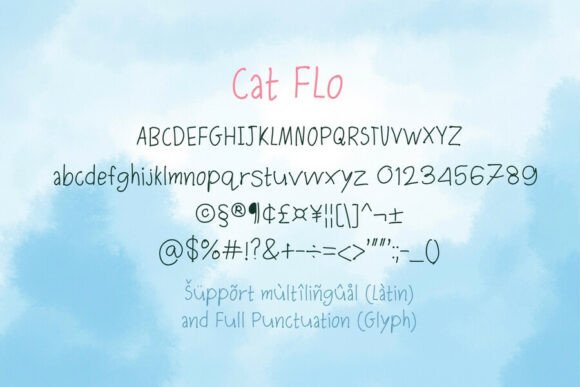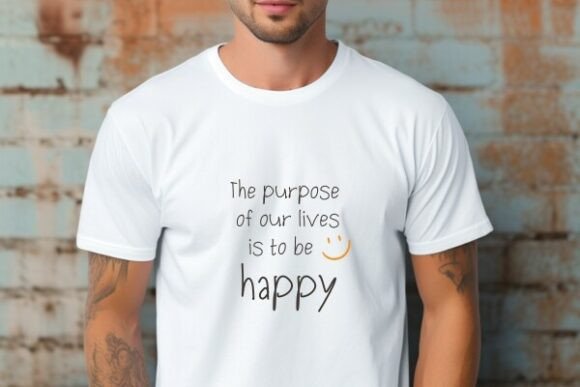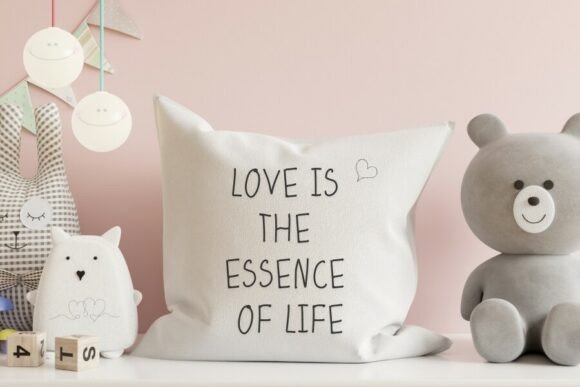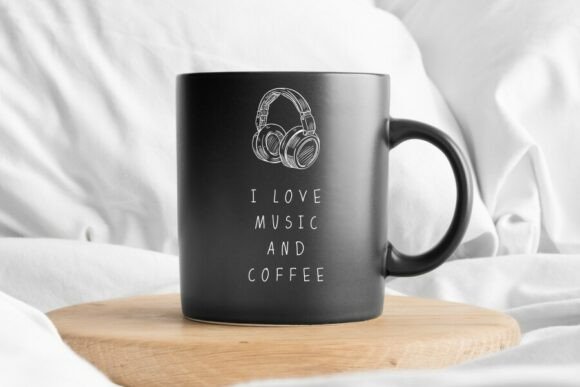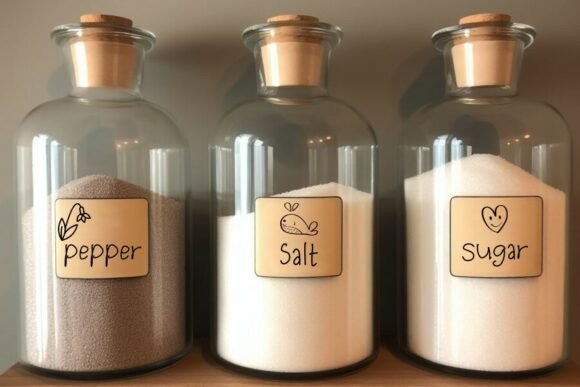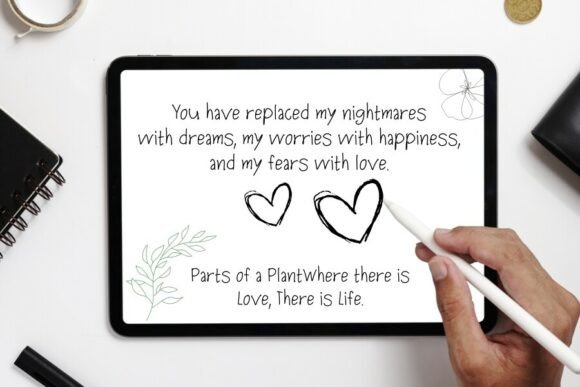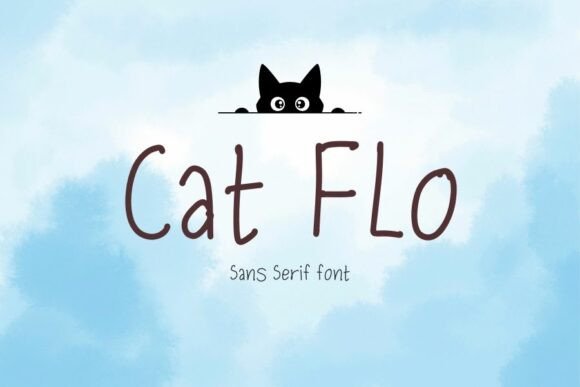
Introducing Cat Flo Font: The Ultimate Cute and Friendly Handwritten Font
Are you tired of using the same old fonts in your designs? Look no further! Cat Flo Font is here to add a touch of cuteness and friendliness to your projects. This beautiful handwritten font is perfect for designers, crafters, and anyone looking to add a personal touch to their work.
What is Cat Flo Font?
Cat Flo Font is a cute, soft, and friendly handwritten font that exudes an informal style and casual vibe. Its unique and charming lettering makes it perfect for a variety of design projects, from greeting cards and invitations to branding and packaging.
Key Features of Cat Flo Font
- Cute and Friendly: Cat Flo Font is designed to be adorable and approachable, making it perfect for designs that require a personal touch.
- Handwritten Style: The font’s handwritten style gives it a unique and organic feel that’s perfect for adding a touch of warmth to your designs.
- Informal and Casual: Cat Flo Font has a relaxed and casual vibe that’s perfect for designs that require a laid-back feel.
- Versatile: The font is versatile and can be used for a variety of design projects, from digital to print.
Why Use Cat Flo Font?
There are many reasons why you should consider using Cat Flo Font in your designs. Here are a few:
- Adds a Personal Touch: Cat Flo Font adds a personal touch to your designs, making them more relatable and engaging.
- Perfect for Branding: The font’s unique and charming lettering makes it perfect for branding and packaging projects.
- Great for Crafters: Cat Flo Font is perfect for crafters who want to add a touch of personality to their projects.
How to Use Cat Flo Font?
Using Cat Flo Font is easy! Here are a few tips to get you started:
- Pair it with Other Fonts: Pair Cat Flo Font with other fonts to create a unique and interesting contrast.
- Experiment with Colors: Experiment with different colors to find the perfect combination that matches your brand or design.
- Use it for Headings and Titles: Use Cat Flo Font for headings and titles to add a touch of personality to your designs.
- Make it Your Own: Don’t be afraid to experiment and make Cat Flo Font your own by adjusting the size, style, and formatting.
In conclusion, Cat Flo Font is a beautiful and versatile handwritten font that’s perfect for designers, crafters, and anyone looking to add a personal touch to their work. Its cute, soft, and friendly style makes it perfect for a variety of design projects, from branding and packaging to greeting cards and invitations. So why not give it a try and see the amazing results for yourself?
Get Ready to Enjoy the Results!
With Cat Flo Font, you can expect amazing results that will take your designs to the next level. Whether you’re a seasoned designer or a beginner, this font is sure to inspire you and help you create something truly special. So go ahead, add Cat Flo Font to your ideas, and enjoy the results!